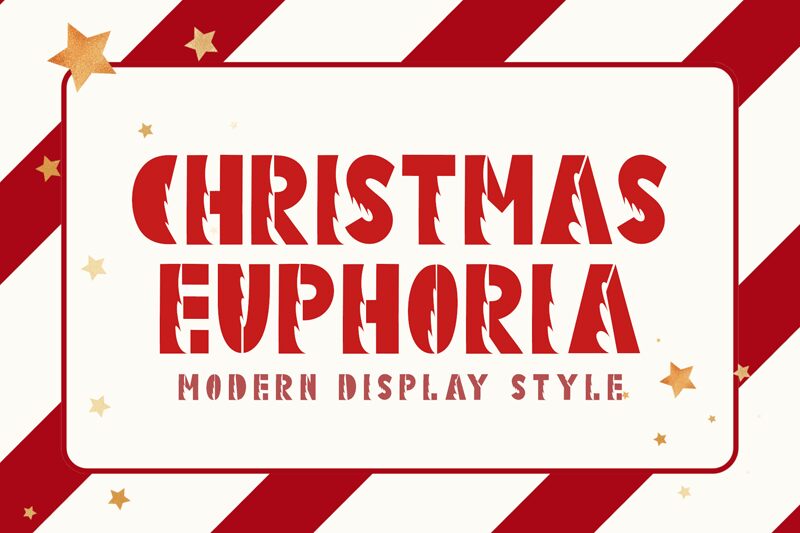
Christmas Euphoria font by Yoga Letter charms with its classic lettering enhanced by a retro modern finish. The font uses a combination of basic outlines and sharp edges that result in a varied arrangement for an unexpected yet stylish look. Although the font style is uniform, it houses within it bold and regular forms.
This is an artistic font that can be used to create unique postcards and invitation cards because although it is character-focused, it can be easily read. The style is a perfect fit for books and a wide selection of printed materials like banners or brochures. It can also be used to design branding presentations related to artistic and fashion projects.